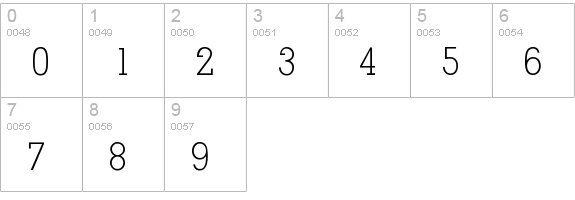
Mesa-Light-Regular is a refined, elegant variant in the Mesa typeface family \xE2\x80\x94 well suited to elegant body text, refined sub-headings, and luxury branding.
Mesa-Light-Regular is a stylish and versatile font that exudes elegance and sophistication. With its clean lines and modern design, this font is perfect for a wide range of projects, from branding to editorial design. The light weight of the font adds a touch of delicacy and refinement, making it ideal for conveying a sense of sophistication and professionalism. What sets Mesa-Light-Regular apart is that it is not only visually appealing but also free to use. That's right, this stunning font is freely available to download at FontsMarket.com, making it accessible to designers and creatives looking to elevate their work without breaking the bank. Whether you're working on a logo, website, or any other design project, Mesa-Light-Regular is sure to make a lasting impression. Download it today and see for yourself the impact this font can have on your projects.